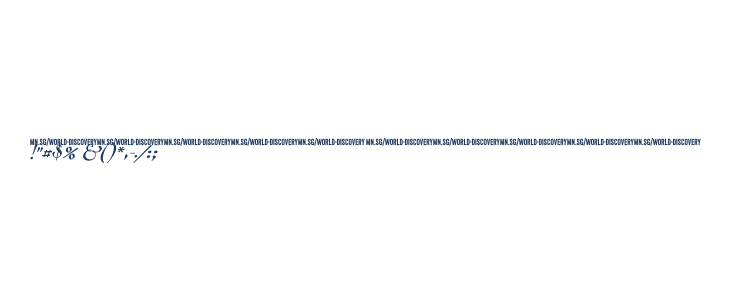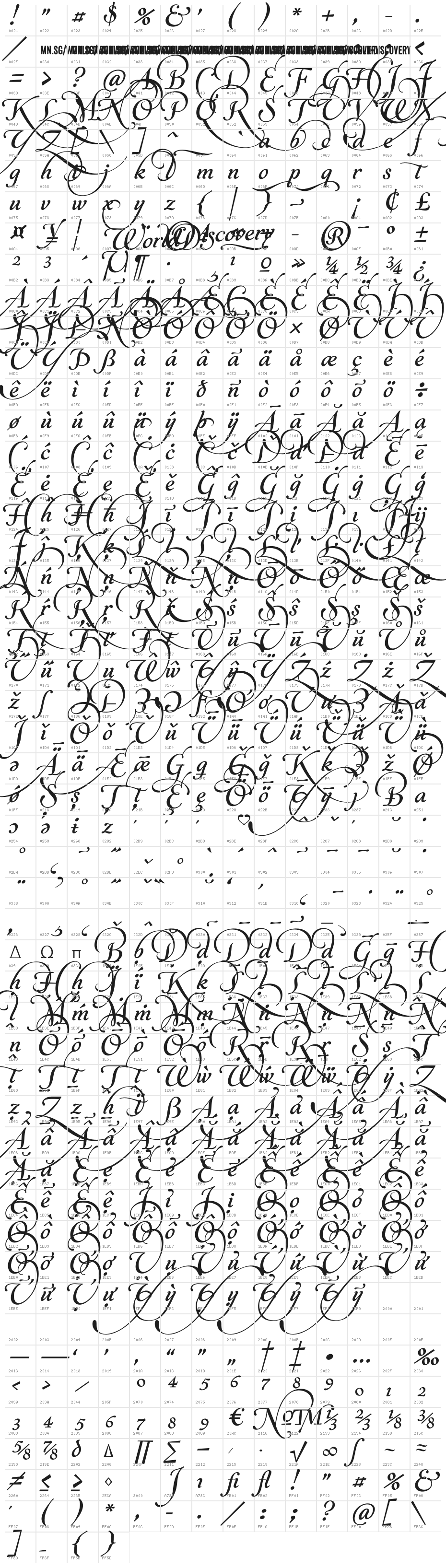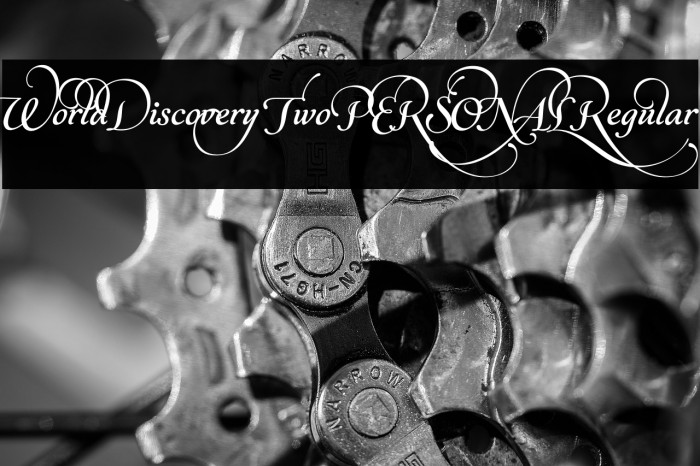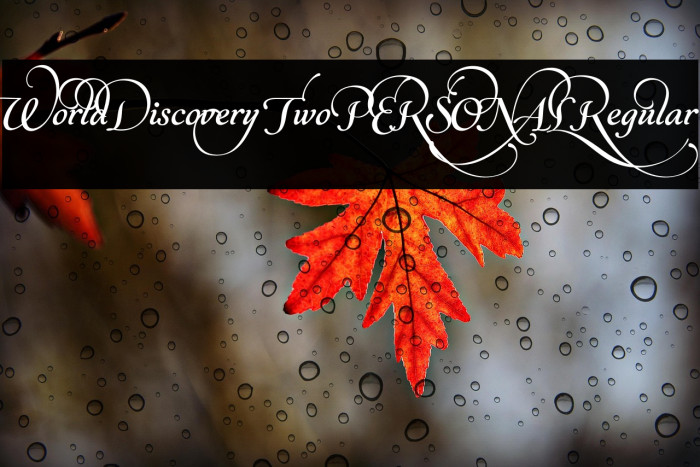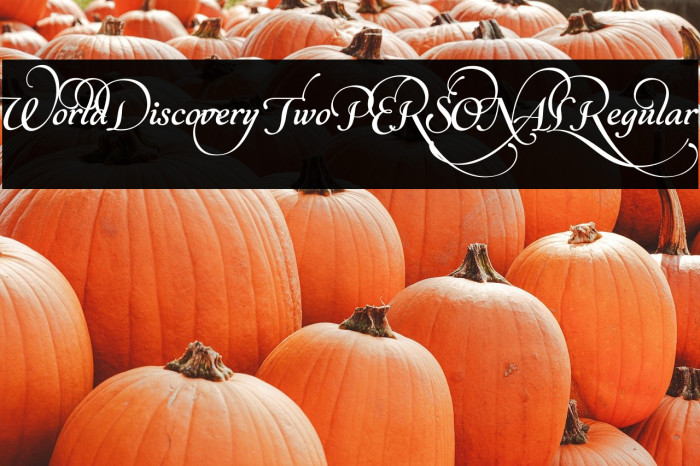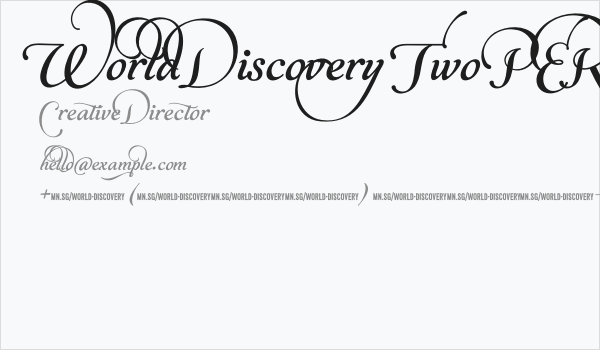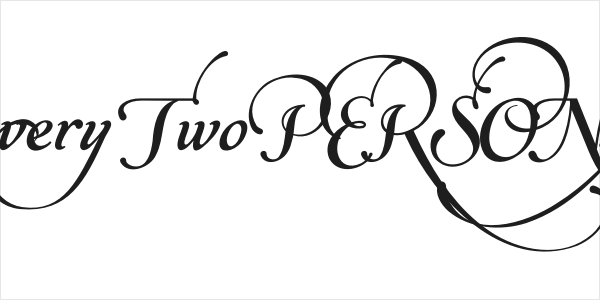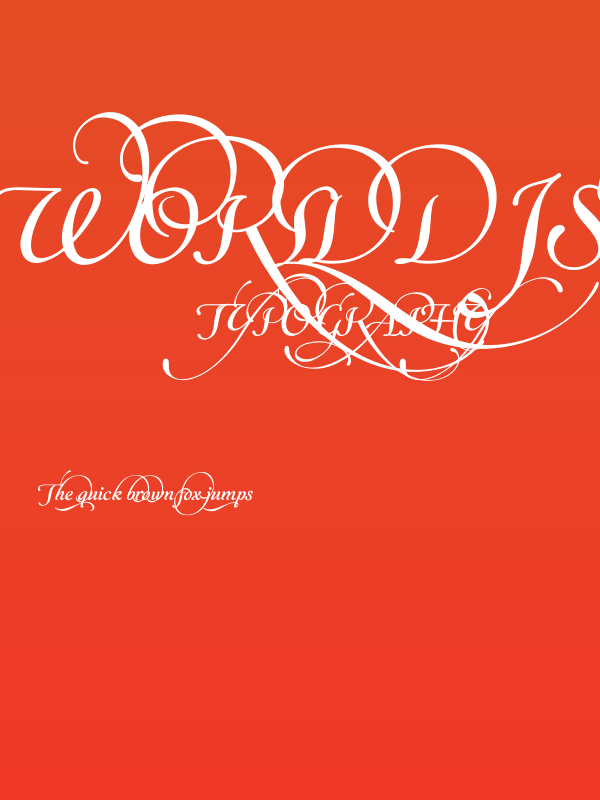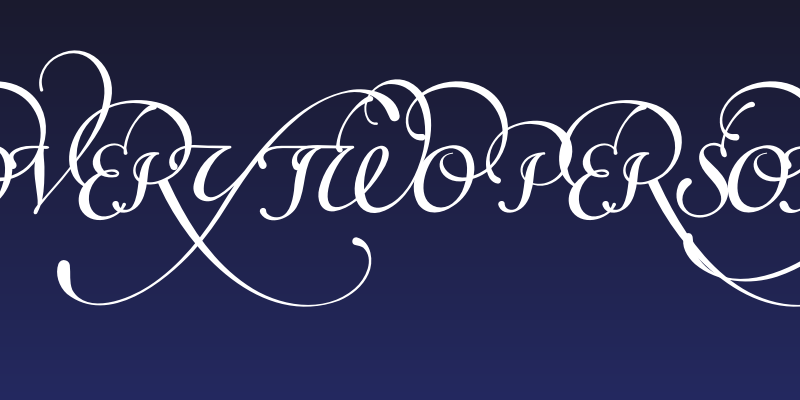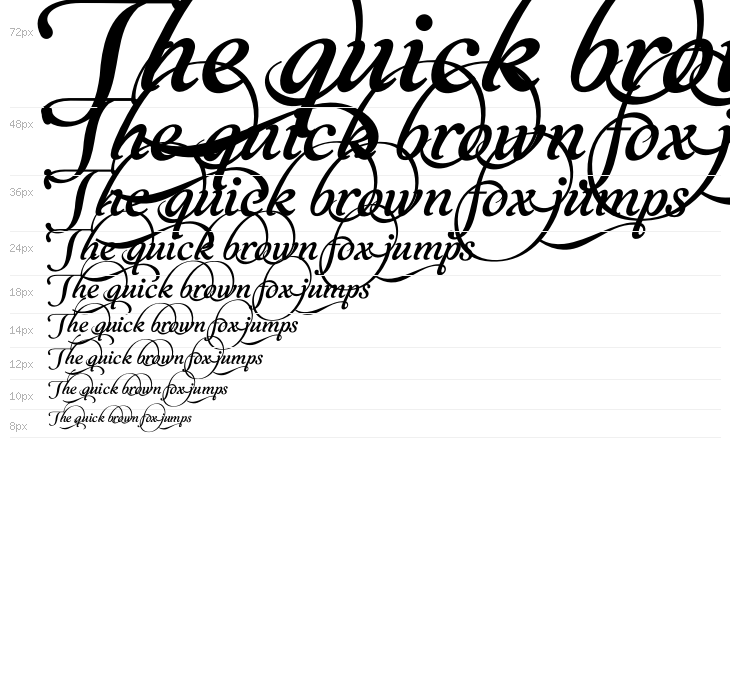
World Discovery Two PERSONAL Regular Font
World Discovery Two PERSONAL Regular Description
This font is an elegant and sophisticated script style, characterized by its flowing, interconnected letterforms and intricate swashes. The uppercase letters are particularly ornate, with elaborate loops and flourishes that give the font a luxurious and decorative appearance. The lowercase letters maintain a consistent style, with smooth curves and a slightly slanted orientation, enhancing the font's graceful aesthetic. The numerals and special characters are designed to match the overall style, featuring similar curves and embellishments. This font is ideal for creating a sense of elegance and refinement.
| Use Case | Logos, Invitations, Decorative Headlines |
| Proposed Projects | Ideal for wedding invitations, luxury branding, elegant packaging, and decorative headlines. |